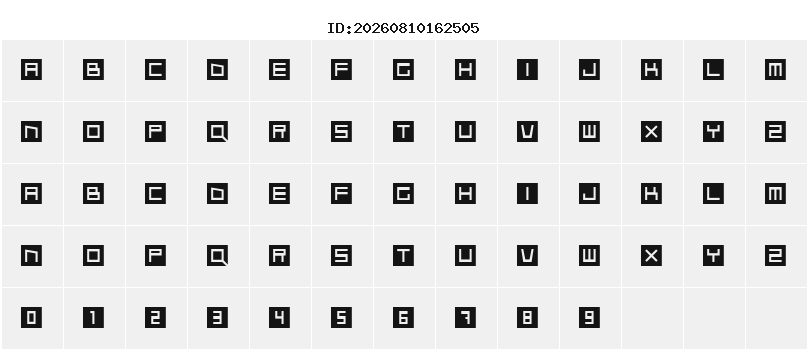
• Font Name: Qubix
• Full Font Name: Qubix
About Qubix.ttf
Qubix.ttf is a modern, elegant sans-serif font designed for ultimate readability and visual harmony. Perfect for branding, headlines, web design, and print materials.